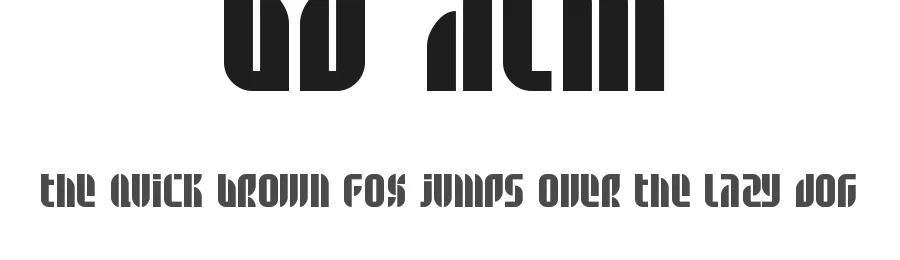
About Mura Knockout Font
My first font. Meant to be edgy, mean, techy, and fun. Intended to be used for logo type.
Mura Knockout Font is a decorative font that shines as a display or heading face. Pair it with a clean sans-serif or serif font for body text β the contrast creates a clear hierarchy while the two styles stay balanced and easy to read.